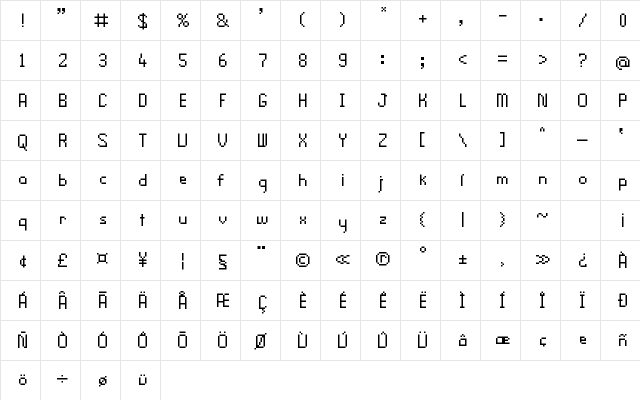
Fraud Medium
Design Context for Fraud Typeface
Fraud takes a measured approach to typography — its balanced proportions and neutral character make it a reliable workhorse for both digital and print work.